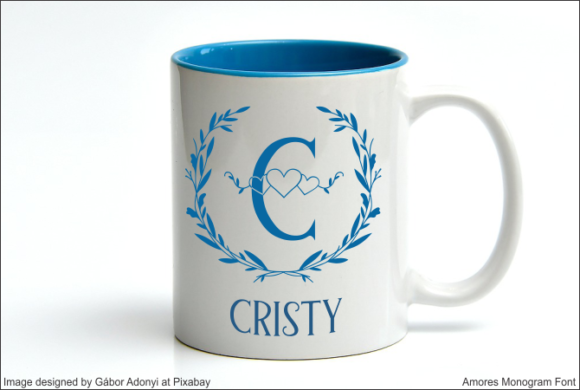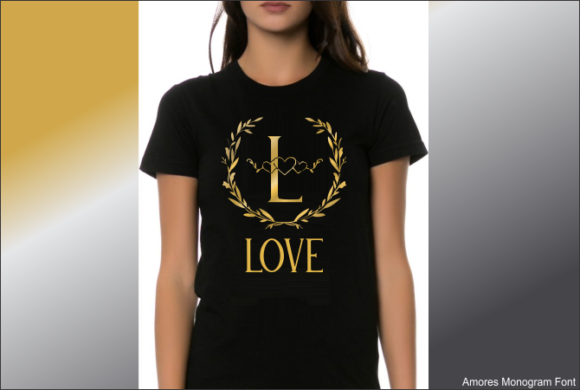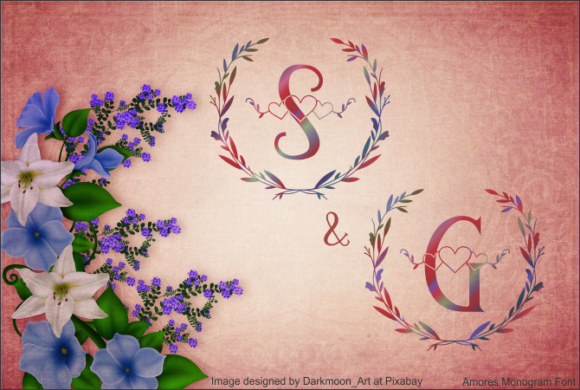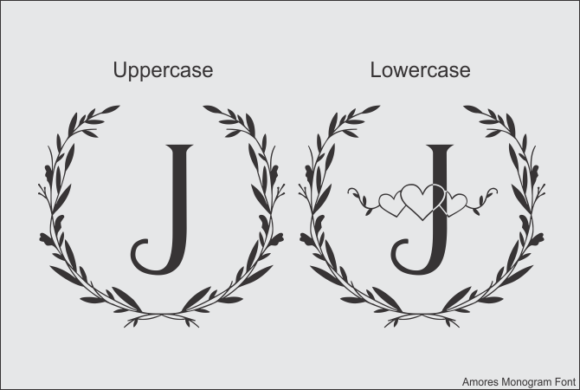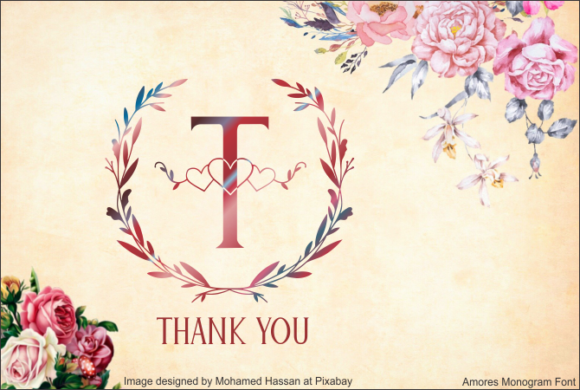
Love at First Letter: The Allure of Amores Monogram Font
Who among us hasn’t been swept away by the romance of a perfectly crafted love letter or a beautifully designed wedding invitation? It’s those little touches – the elegant script, the delicate flourishes – that make a design truly unforgettable. For designers, the quest for that perfect font is a never-ending journey, and one that often yields surprising results. Take, for instance, the Amores Monogram Font, a pure and elegant decorative font that adds a touch of whimsy and wonder to any design.
With its intricate details and romantic charm, the Amores Monogram Font is a treasure trove of creative possibilities. Whether you’re crafting a wedding invitation, a love letter, or simply a design that speaks to the heart, this font is sure to inspire. Its value lies not only in its aesthetic appeal but also in its versatility, making it a go-to choice for designers looking to add a touch of elegance to their work.
Amores Monogram Font Key Features
- Font Style: A beautiful, elegant monogram font with a touch of romance and whimsy, perfect for weddings, anniversaries, and other special occasions.
- Character Set: The font includes a wide range of characters, including uppercase and lowercase letters, numbers, and punctuation marks, as well as a variety of monogram and decorative symbols.
- Unique Characteristics: The Amores Monogram Font features intricate details and ornaments, making it a standout choice for designers looking to add a touch of elegance and sophistication to their designs.
Designer Review: Amores Monogram Font
Overall, I think Amores Monogram Font is a beautiful and elegant font that can add a touch of sophistication to any design project. ✨ The font’s intricate details and monogram style make it perfect for creating unique and personalized designs.
Some of the strengths of Amores Monogram Font include:
- Unique and distinctive design that can help a design stand out
- Elegant and sophisticated feel that’s perfect for high-end designs
- Great for creating personalized and customized designs, such as monogrammed stationery or gifts
- May be too ornate or complicated for simpler designs
- Some letters or combinations of letters may not be easily readable or recognizable
- Can be difficult to pair with other fonts, due to its distinctive and ornate design
- Personalized gifts and accessories
- Business logos and branding materials
Overall, I would recommend Amores Monogram Font for designers who are looking to add a touch of elegance and sophistication to their designs. While it may have some limitations, the font’s unique design and intricate details make it a great choice for creating high-end and personalized designs.
The Amores Monogram Font is perfect for creating custom monograms, logos, and branding elements. Use it to add a touch of elegance and sophistication to your designs.